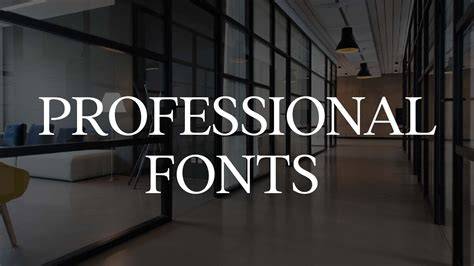
The Most Popular Office Fonts Of 2023
Choosing the right font for your office documents can be a daunting task. With so many different fonts available, it can be hard to know which one to pick. Luckily, in 2023, there are a few fonts that have become popular among office professionals. Here are some of the top office fonts of the year.
Arial
Arial is a classic font that has been around for decades. It is a sans-serif font that is easy to read and looks great on a variety of documents. This font is often used for business documents, as it is professional and straightforward. Arial is a great choice for documents that need to be read quickly and easily, as it is easy to scan.
Calibri
Calibri is a modern font that has become popular in recent years. It is a sans-serif font that is slightly more rounded than Arial. This font is a great choice for documents that need to be easily readable, but with a bit of a softer feel. Calibri is often used for documents that are more creative, such as brochures or posters.
Garamond
Garamond is an old-school font that has been around since the 16th century. This serif font is often used for documents that need a sophisticated and classic feel. Garamond is a great choice for documents that need to look professional, such as resumes or cover letters. The font is easy to read, but it also has a bit of a vintage feel.
Cambria
Cambria is a modern font that was designed specifically for use in office documents. This serif font is easy to read and looks great on a variety of documents. Cambria is often used for documents that need a bit of a softer, more inviting feel. This font is a great choice for documents that need to look professional, but with a bit of added flair.
Gill Sans
Gill Sans is a modern font that has become increasingly popular in recent years. This sans-serif font is easy to read and looks great on a variety of documents. Gill Sans is often used for documents that need to look professional and modern, such as web pages or presentations. The font is also a great choice for documents that need a bit of a creative flair.
Choosing the right font for your office documents can be a daunting task. In 2023, there are a few fonts that have become popular among office professionals. Arial, Calibri, Garamond, Cambria, and Gill Sans are some of the top office fonts of the year. Each font has its own unique style and can be used for a variety of documents. Whether you need a font for a business document, a resume, a presentation, or something else, these fonts are sure to make your documents look professional and polished.